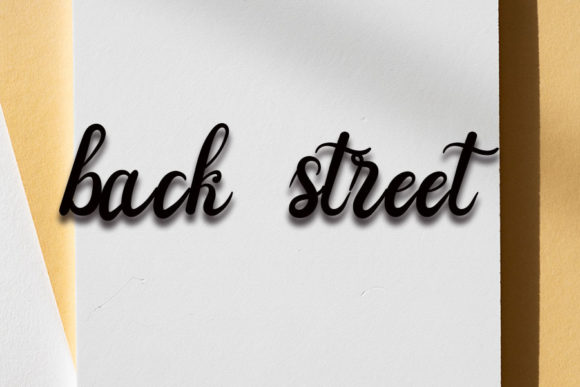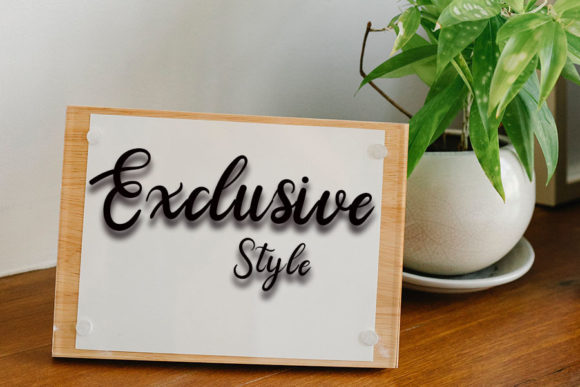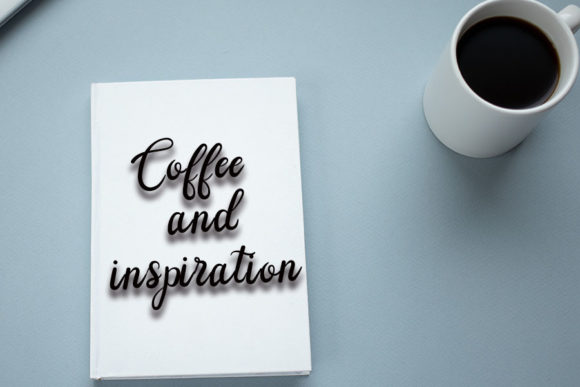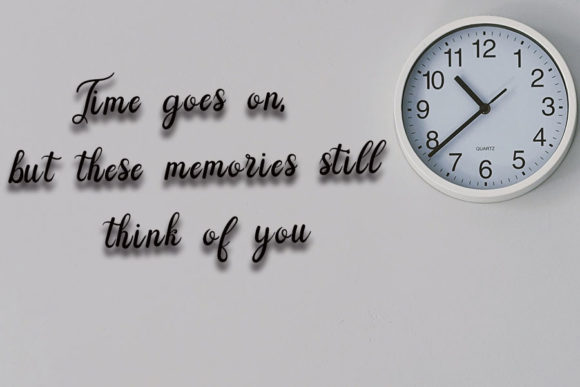
High Performance Font
About High Performance Font
High Performance is a lovely and timeless handwritten font. It is the best choice for creating eye catching logos, branding and quotes. Every letter has a unique and beautiful touch, which will make your design come alive!